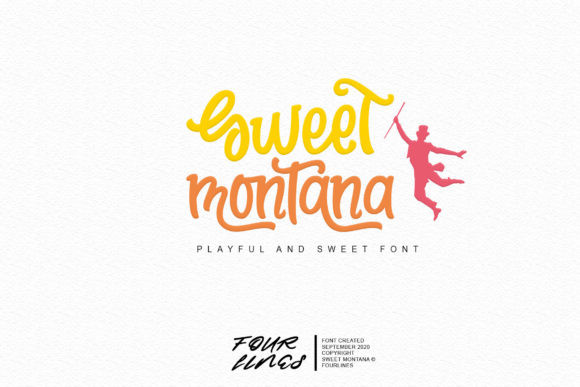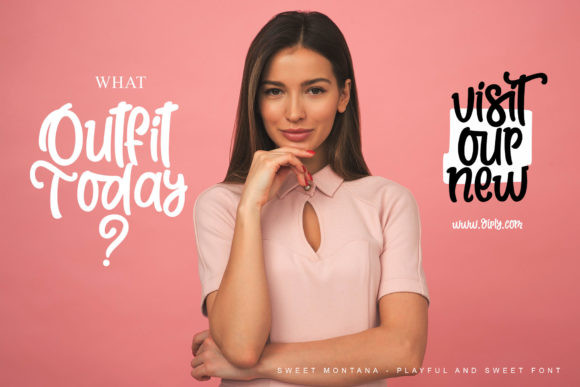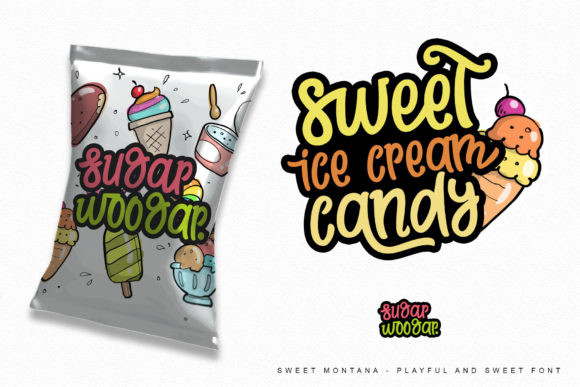
Sweet Montana Font
Sweet Montana is a magical and sweet handwritten font carefully created with a touch of elegance. Whether you’re looking for fonts for Instagram or calligraphy scripts for DIY projects, logos, packaging, quotes, this font will turn any creative idea into a true piece of art!